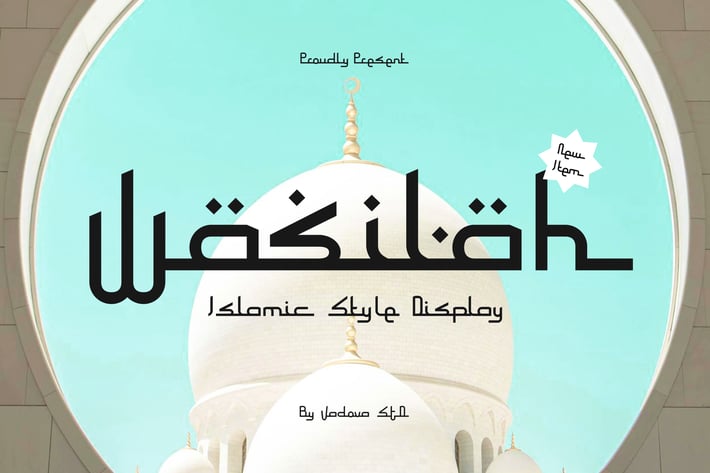
Wasilah Islamic Font
Wasilah Islamic Font Wasilah is a distinctive modern display font that beautifully marries geometric precision with a profound Islamic and cultural influence. It radiates a contemporary yet reverent energy, perfect for designs seeking a sophisticated blend of tradition and modernity. This font is uniquely positioned for an intended market vibe targeting Islamic events, cultural branding, spiritual content, educational materials, and any design that requires a strong, culturally resonant, and visually striking typeface. Its letterform structure is characterized by bold, geometric lines with unique decorative elements that evoke classic Arabic calligraphy while maintaining excellent readability in Latin characters. Wasilah’s best use cases include branding for religious institutions, cultural festivals, product packaging with an ethnic or spiritual theme, headlines for articles on Islamic art or history, educational materials, and impactful social media campaigns.
Wasilah Islamic Font Suitable for Islamic event posters, cultural festival branding, modern mosque signage, spiritual book covers, educational materials on Islamic studies, and product packaging with an ethnic focus, as well as website headers for cultural blogs, social media campaigns for religious holidays, documentary titles, art exhibition catalogs, apparel designs with cultural motifs, greeting cards for special occasions, children's books with cultural themes, museum displays, tourism brochures, app interfaces for religious apps, podcast covers, educational videos, community center branding, and any design seeking a unique blend of heritage and modernity.